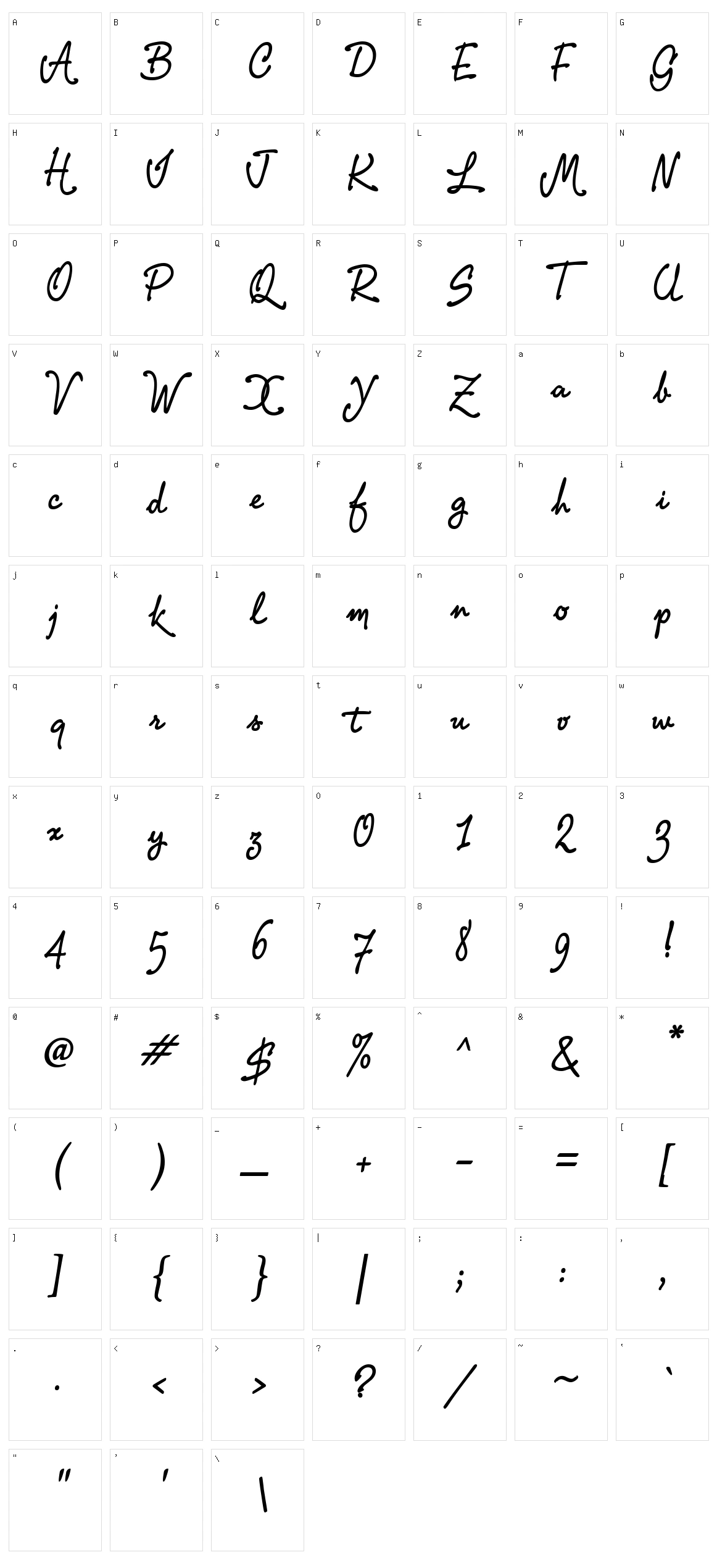
The free font PR8 Charade is carefully designed by Digital PR8, showcasing a thoughtful balance of creativity and usability and falls under the Script font style. When you download the ZIP file, it contains only 39.27 KB of font files, making it lightweight and quick to download. Please review the license details below to understand permitted usage and distribution rights. If license information is not available, we recommend using this font for personal projects only or contacting the author directly for commercial usage permissions.